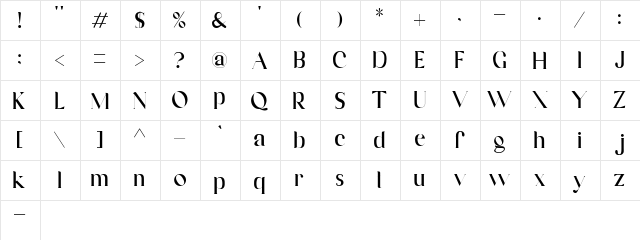
Maldive Regular
| Designer | Muksal Craeative. 2020 |
Design Context for Maldive Typeface
Maldive offers clean, dependable letterforms without strong stylistic allegiance, making it a practical choice for designers who need flexibility.